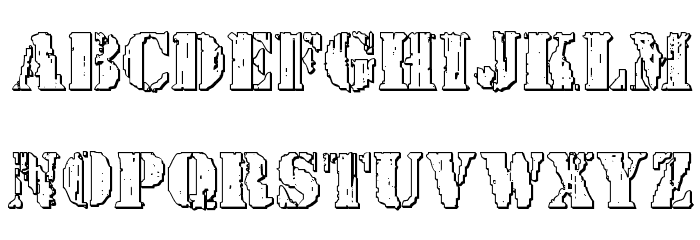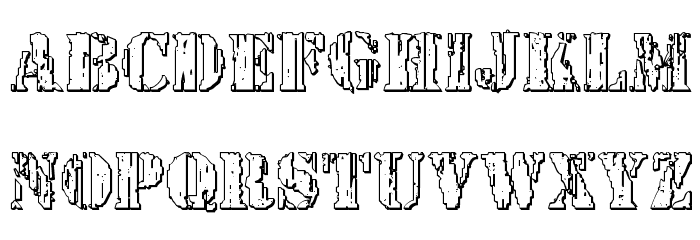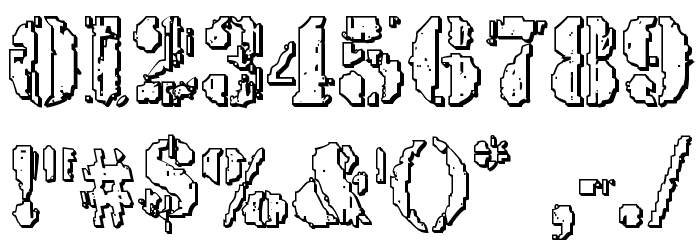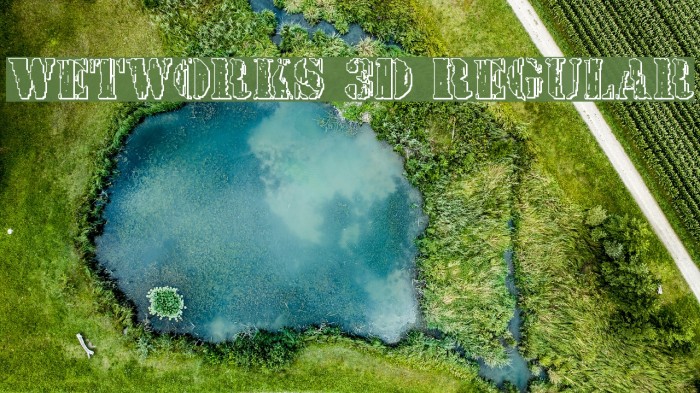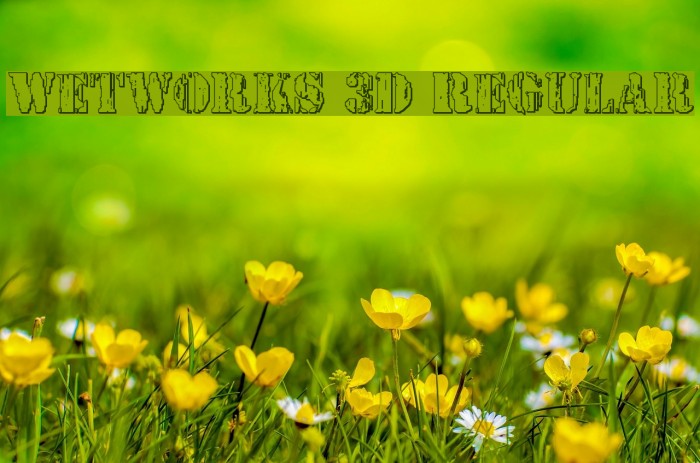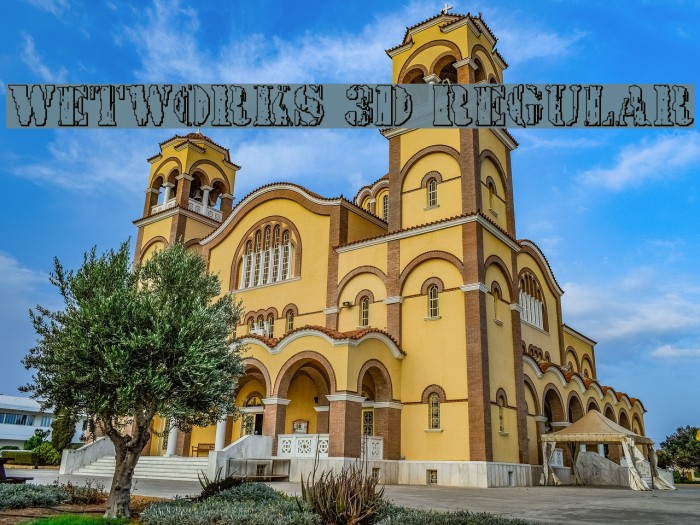
Wetworks 3D Regular Font
This font features a bold, distressed style with a three-dimensional appearance. The characters are outlined with a rugged, textured effect that gives them a worn, industrial look. The uppercase and lowercase letters maintain a consistent design, with the numbers and special characters following the same aesthetic. The font's unique style makes it stand out, with each letter appearing as if it has been carved or eroded over time. This creates a visually striking effect that is both modern and edgy, suitable for projects that require a bold statement.
A bold, distressed 3D font with a rugged, industrial look.
- Proposed Projects: Ideal for posters, album covers, video game graphics, and branding that requires a strong, edgy aesthetic.
- Overall Style: Modern, Edgy